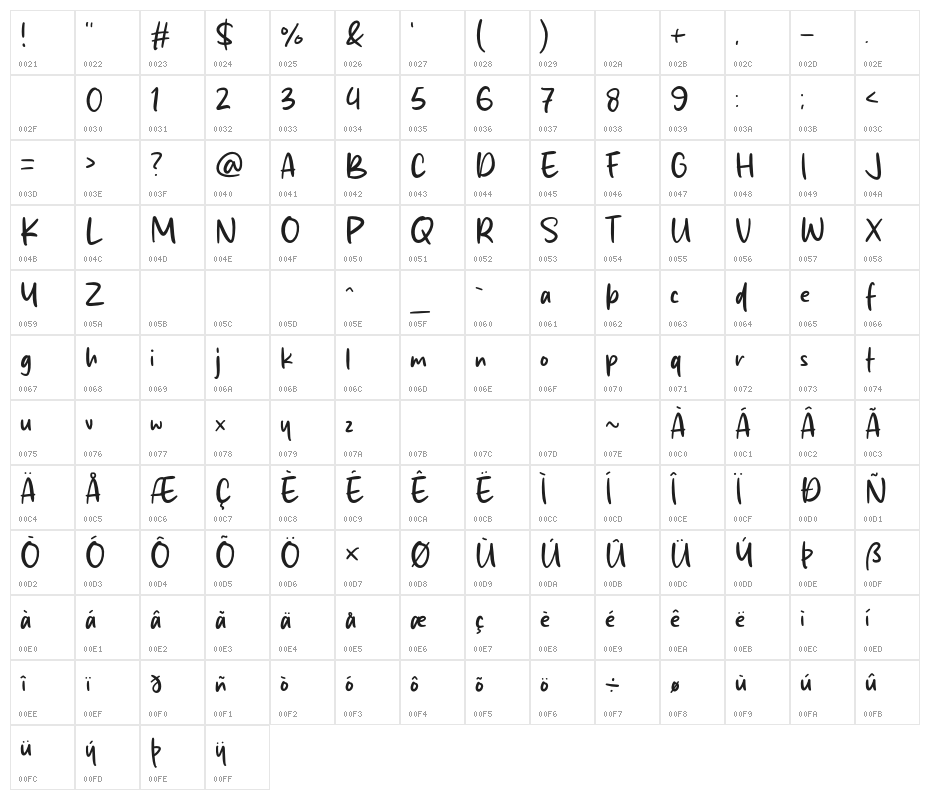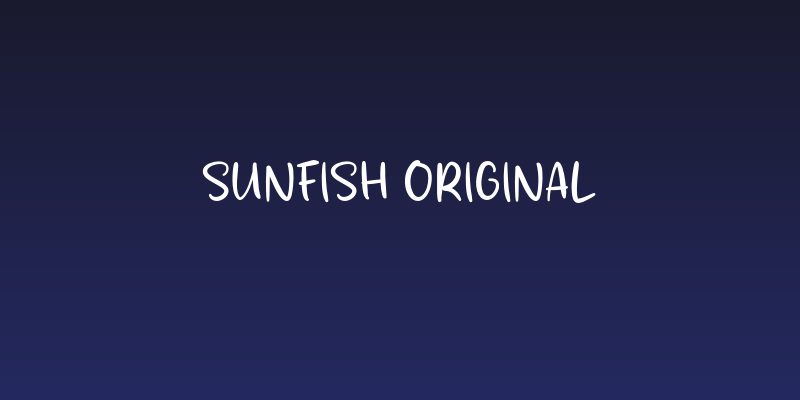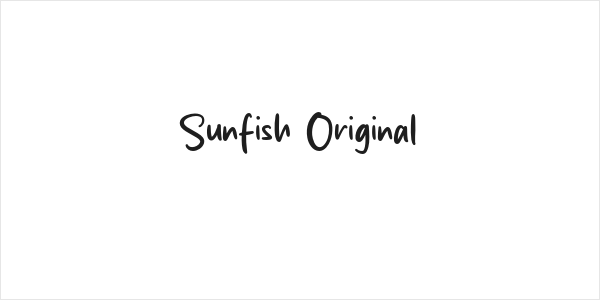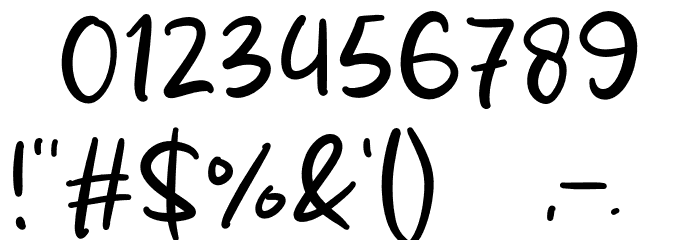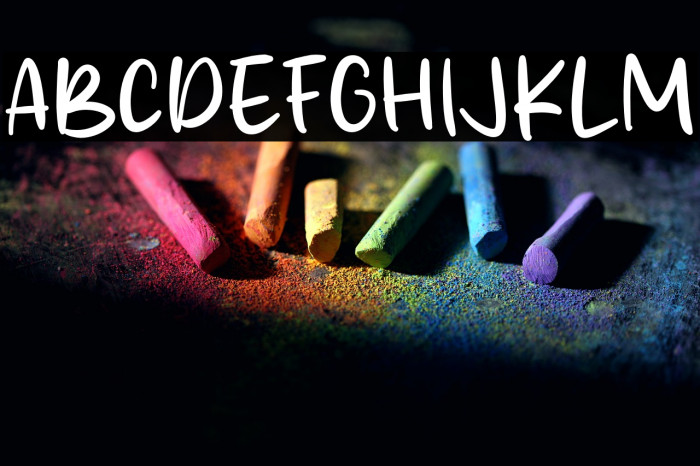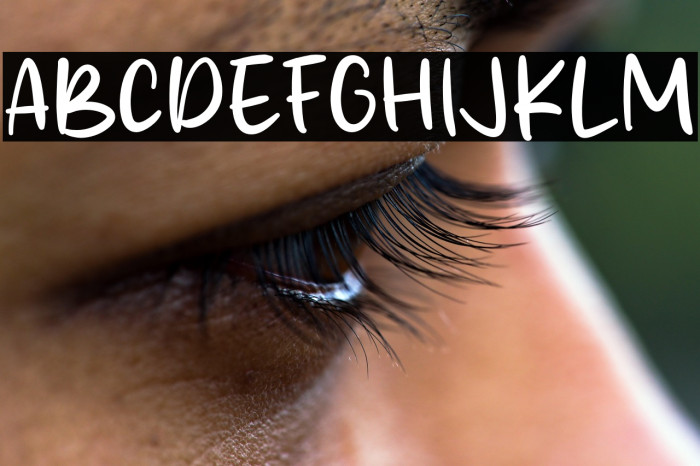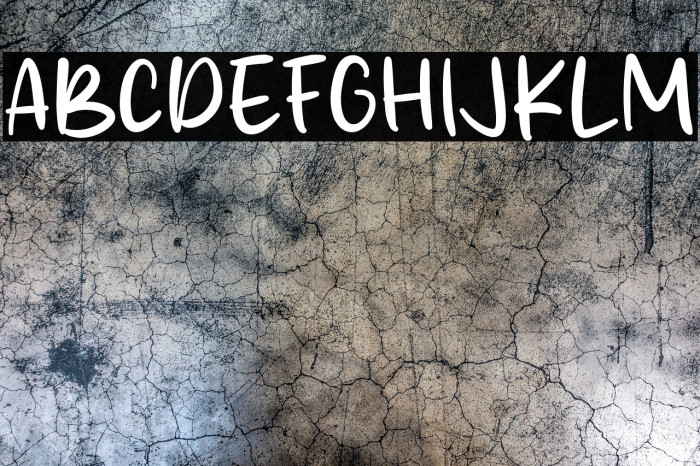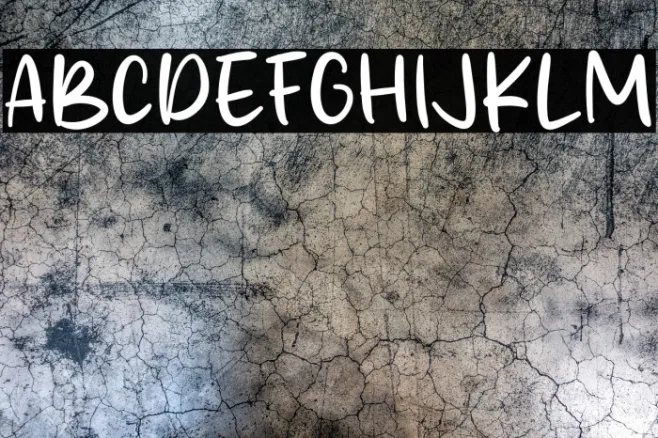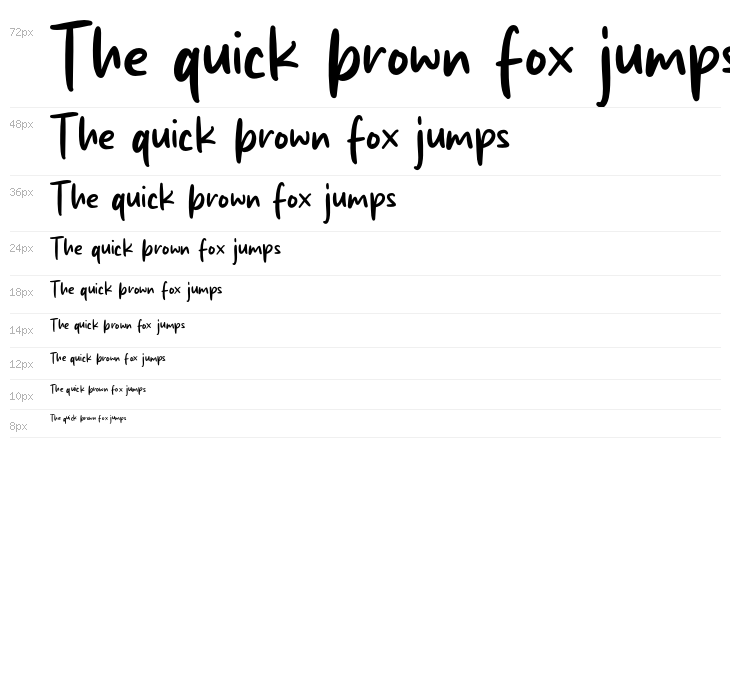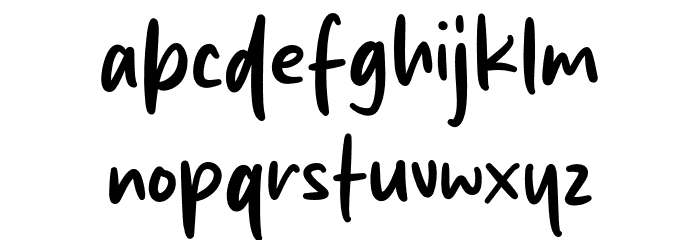
Sunfish Original Font
Sunfish Original Description
This font exudes a playful and casual handwritten style, characterized by its smooth, flowing lines and slightly irregular shapes. The letters are bold and rounded, giving a friendly and approachable feel. The uppercase and lowercase letters maintain a consistent style, with a slight slant that adds to the informal aesthetic. The numbers and special characters are crafted with the same playful touch, ensuring a cohesive look across all elements. This font is perfect for projects that require a personal, human touch, such as greeting cards, invitations, or informal branding materials.
| Overall Style | Casual, Playful |
| Use Case | Logos, Invitations, Greeting Cards |
| Proposed Projects | Ideal for greeting cards, invitations, personal branding, and informal communication materials. |